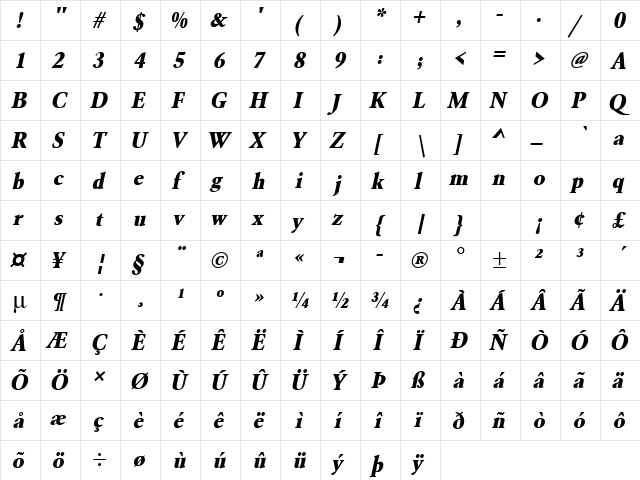
URWGaramondTExtBolNar Oblique
Design Context for URWGaramondTExtBolNar Typeface
URWGaramondTExtBolNar takes a measured approach to typography — its balanced proportions and neutral character make it a reliable workhorse for both digital and print work. The dynamic lean of this cut emphasises speed and emphasis in any layout.
Pro Tip: Try URWGaramondTExtBolNar for annotation and caption copy alongside an upright companion — the contrast in angle creates a dynamic but ordered typographic system.